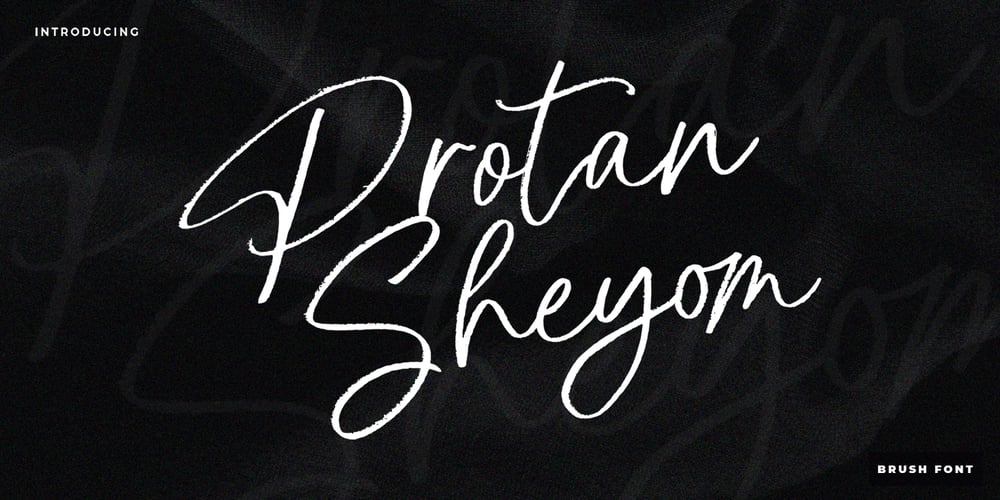
Protan Sheyom Font Family was designed by khaidir and published by Gatype. Protan Sheyom contains 1 styles and family package options. Protan Sheyom is a font that was scratched with a brush pen, to get a natural texture, this font will show the characteristics of the hand. This font is perfect for various places such as clothing, posters, title books, stationery designs, quotes, branding, logos, invitations, greeting cards, t-shirts, packaging designs and more.Protan Sheyom is coded with Unicode PUA, which allows full access to all additional characters without special design software. Mac users can use Font Book , and Windows users can use the Character Map to view and copy any of the extra characters to paste into your favorite text editor/app.Thanks a lot for viewing and let me know if you have any questions.